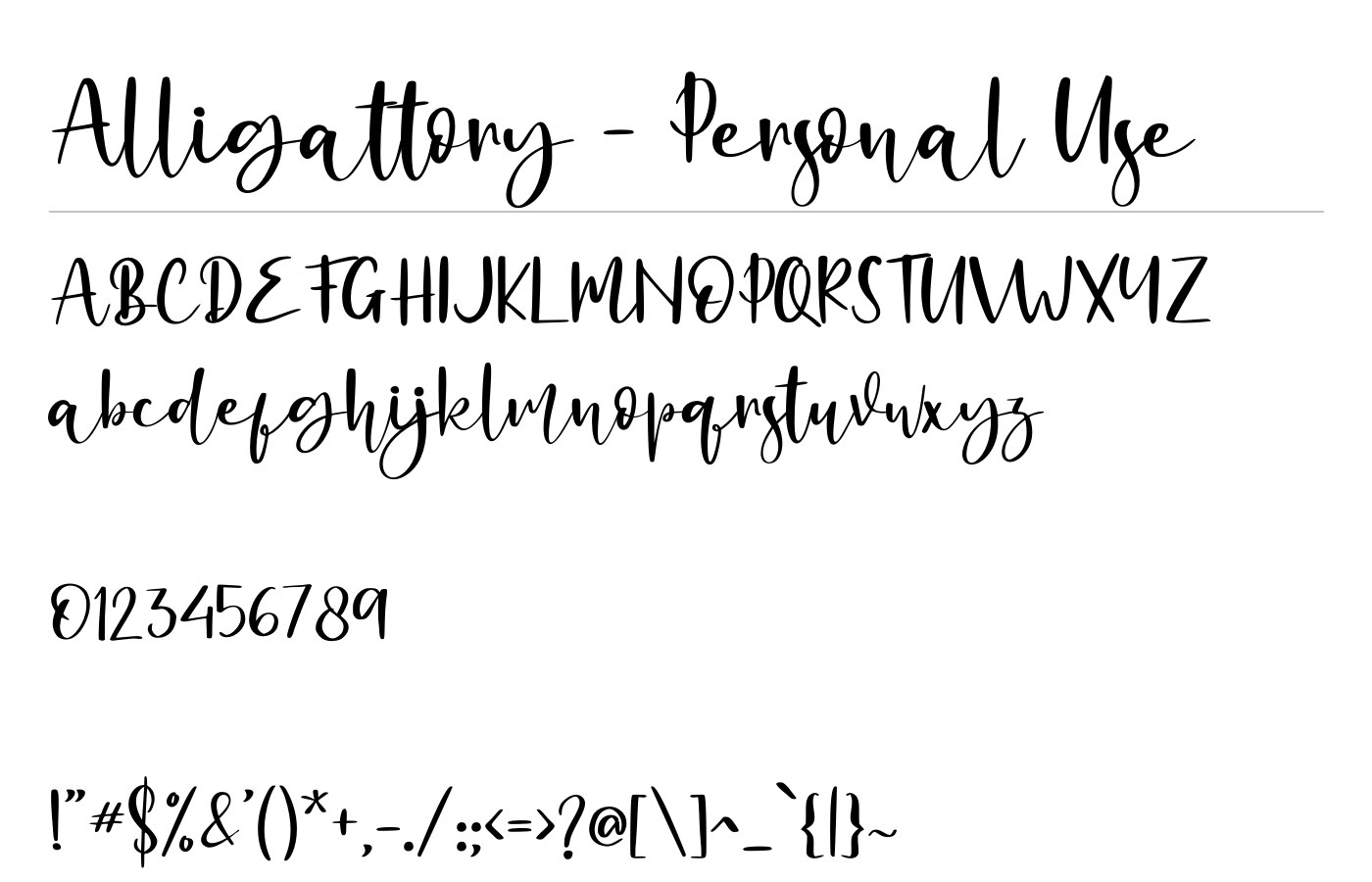
Alligattory is a playful and elegant script font with a friendly, handwritten feel. Its smooth, flowing strokes and moderate contrast give it a modern, approachable personality perfect for personal projects, invitations, and creative branding that seeks warmth and charm. This font works beautifully for headlines and decorative text where a casual yet stylish touch is desired.
Alligattory - Personal Use Font
About Alligattory - Personal Use Font